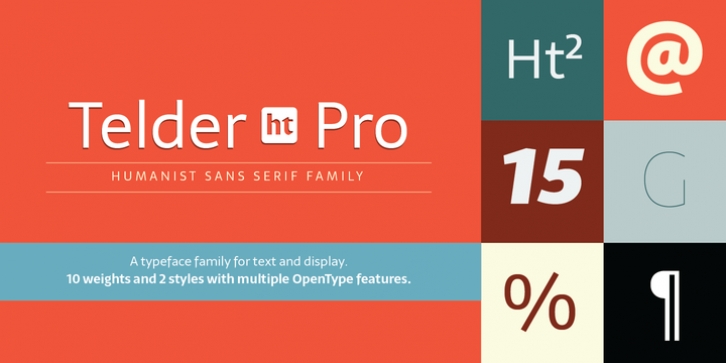
Telder HT Pro downloadDesigner: Andrés Torresi
Publisher: Huerta Tipográfica
Telder HT Pro is a humanist sans serif family with 10 weights, conceived as a web font with nice legibility at normal text sizes. Originally based on grid fitting shapes it became a multi-purpose typeface with low contrast, open counter forms, wide proportions and a touch of freshness. It is ideal for paragraph text on websites as blogs and news sites and works great for printed text. Its extreme weights are suitable for display sizes. This PRO version contains 10 weights and 2 styles. All the fonts contain small caps, alternate glyphs in stylistic sets (such as B, P, R, a, f, g, w, x, y & z), four number sets (lining and old style, proportional and tabular), ordinals, superiors, inferiors, fractions, disctretionary ligatures, arrows and more. Each font contains +1000 glyphs.